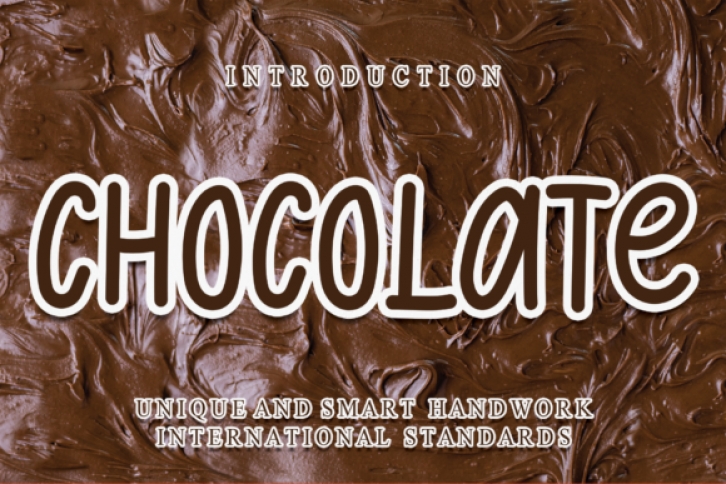
Chocolate is a simple and natural handwritten font. This original look will appeal to a wide range of crafty ideas, from letterheads and titles, to stationery.